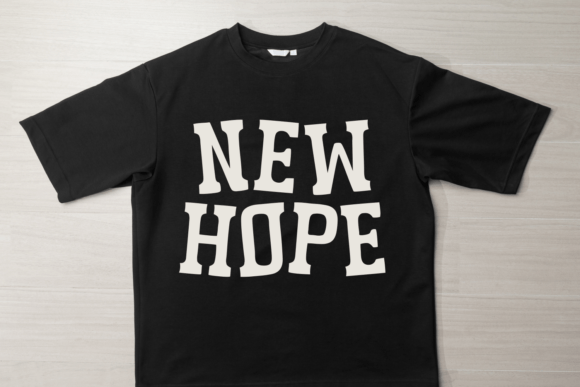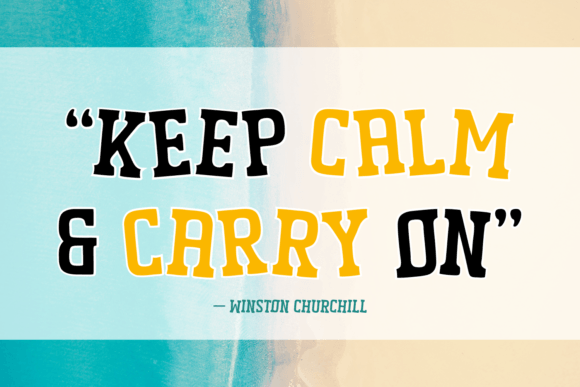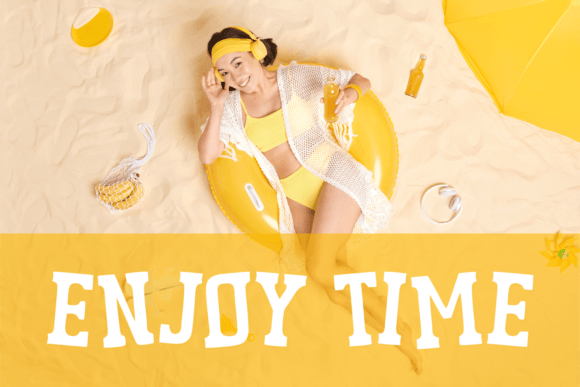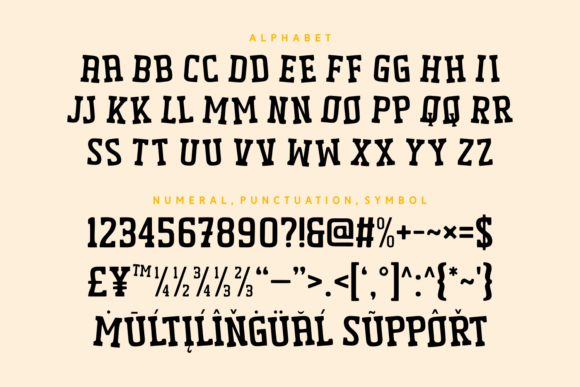
Have you ever stumbled upon the perfect font for a project, only to feel like it’s the missing piece that takes your design from good to great? That’s exactly what happened when we discovered the Aurora Beachy Font – a playful display font that brings a breath of fresh air to your creative endeavors.
| 📌 Product Name | Aurora Beachy Font |
| 👤 Author | Andal (7NTypes) |
With its cheerful letterforms and carefree vibe, the Aurora Beachy Font is the perfect companion for designers who want to add a splash of playfulness to their projects. Whether you’re working on beach-themed invitations, vacation posters, or anything that calls for a fun and friendly aesthetic, this delightful typeface is sure to shine. By incorporating the Aurora Beachy Font into your designs, you’ll be able to create a lighthearted atmosphere that’s sure to captivate your audience.
Aurora Beachy Font Key Features
- Unique Characteristics: The Aurora Beachy Font features a unique, hand-drawn design with a beachy, whimsical feel, perfect for creating a relaxed, coastal atmosphere in branding, advertising, and editorial content.
Aurora Beachy Font Review
I recently had the chance to work with the Aurora Beachy Font, and I must say it’s a delightful addition to any design project. ✨ The font’s unique, hand-painted feel instantly transports me to a sunny beach, and I love how it adds a touch of whimsy to any text.
Here are some of the things I appreciate about this font:
- ✨ Unique, hand-painted style that adds character to any text
- ✨ Perfect for beach-themed or summer-inspired designs
- ✨ Easy to read, even in smaller font sizes
However, there are a few limitations I’d like to mention:
- ⚠️ May not be suitable for formal or professional designs
- ⚠️ Can be a bit tricky to pair with other fonts, as it’s quite distinctive
Overall, I think the Aurora Beachy Font is a great choice for designers looking to add a playful touch to their work. While it may not be suitable for every project, it’s definitely a valuable addition to any design library.
The Aurora Beachy font is perfect for creating a relaxed, beachy vibe in your designs. Some common use cases include:
- Social media posts for beach-related businesses or events.
- Travel brochures or itineraries for beach destinations.
- Wedding invitations or stationery for beach-themed weddings.
Tips for getting the most out of the Aurora Beachy font include:
- Set the font as the main text font in your design software.
- Use the font for the invitation’s main text, such as the wedding date, location, and time.
- Pair the font with a watercolor or hand-drawn illustration to add a touch of elegance and whimsy.
- Use a soft, pastel color palette to complement the font’s beachy feel.
- Add a touch of gold or silver foil stamping to give the invitation a luxurious feel.
- Use a subtle texture or pattern in the background to add depth and interest.
- Use the font for the book title, such as “Coastal Adventure” or “Summer Lovin'”.
- Pair the font with a colorful and eye-catching illustration, such as a palm tree or a seashell.